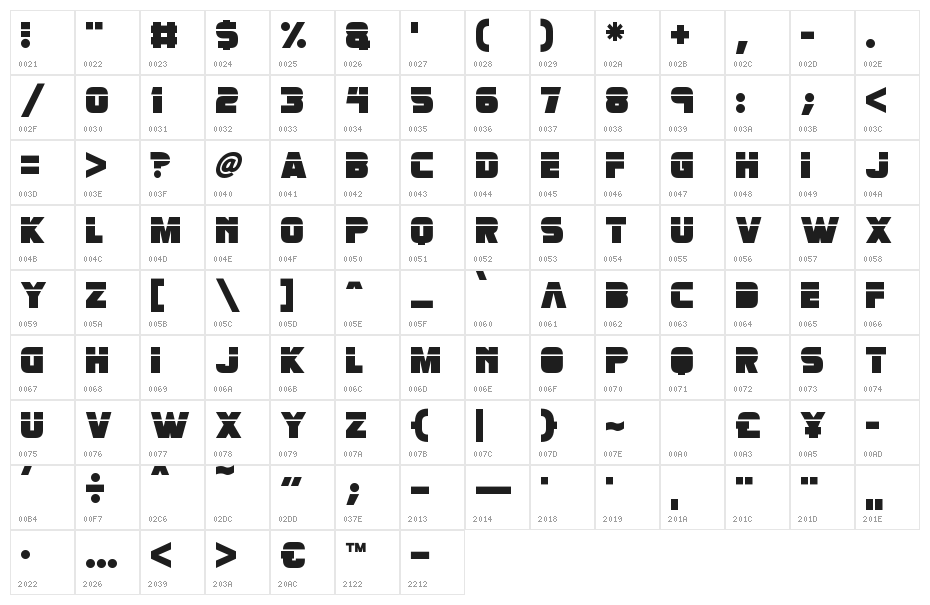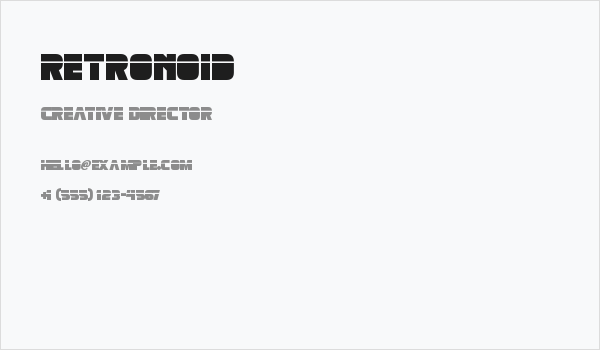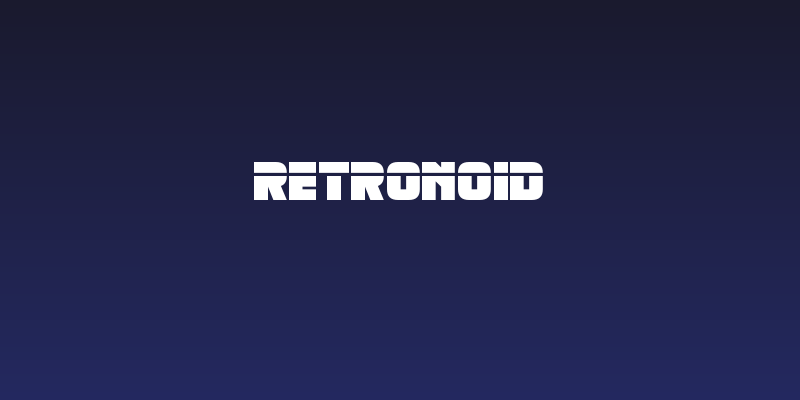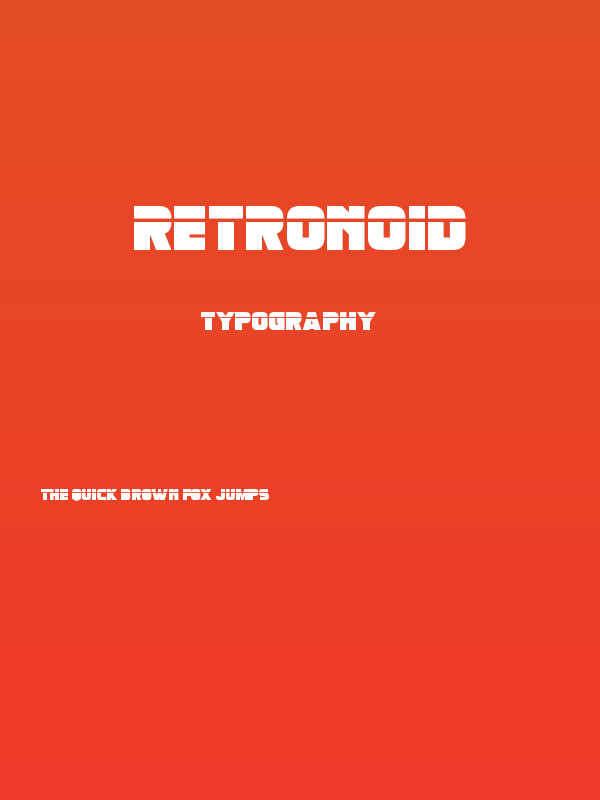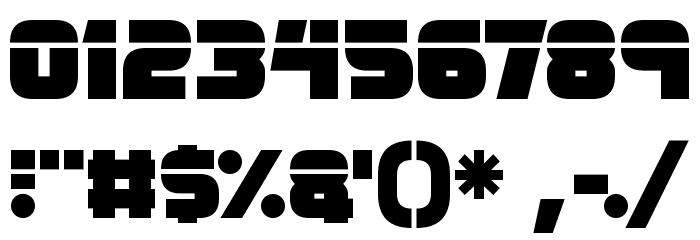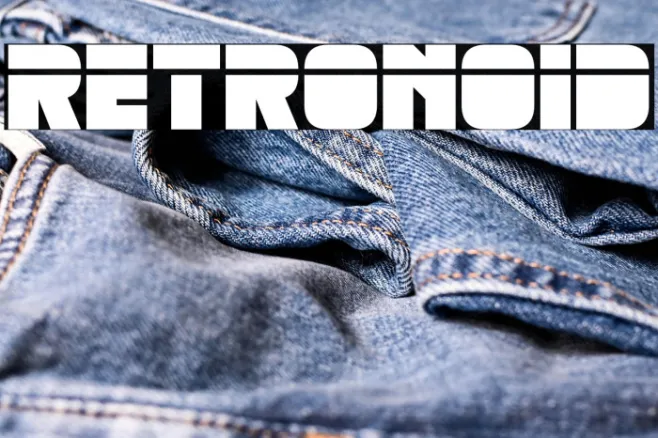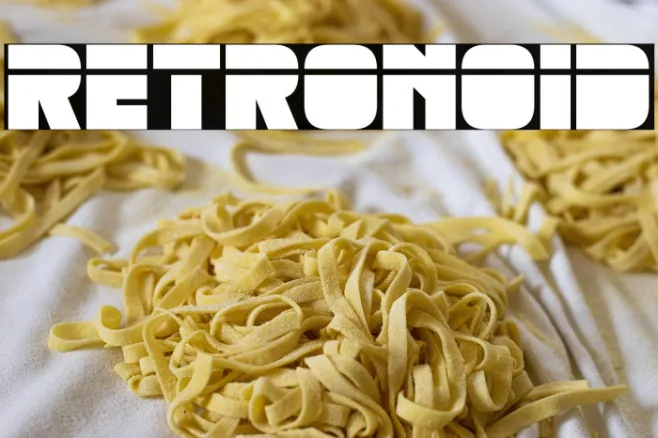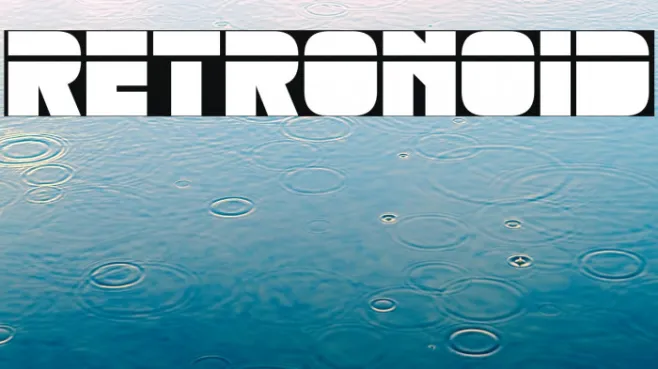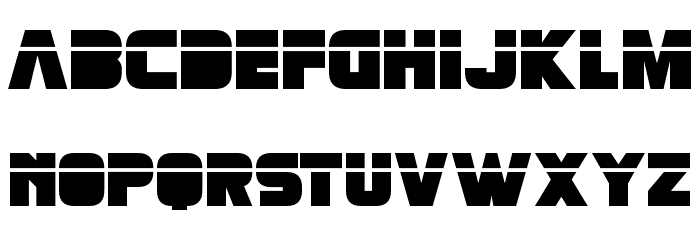
Retronoid Font
Retronoid Description
This font features a bold, geometric design with a distinctly futuristic and retro aesthetic. The characters are constructed with thick, block-like shapes, creating a strong visual impact. The uppercase letters are uniform in height, while the lowercase letters maintain a consistent style, contributing to a cohesive look. The numbers and special characters follow the same design principles, ensuring a unified appearance across all elements. The font's style is reminiscent of digital or arcade-inspired themes, making it ideal for projects that require a modern yet nostalgic touch.
| Overall Style | Retro-Futuristic |
| Proposed Projects | Ideal for video game titles, tech-themed posters, and retro-futuristic branding. |